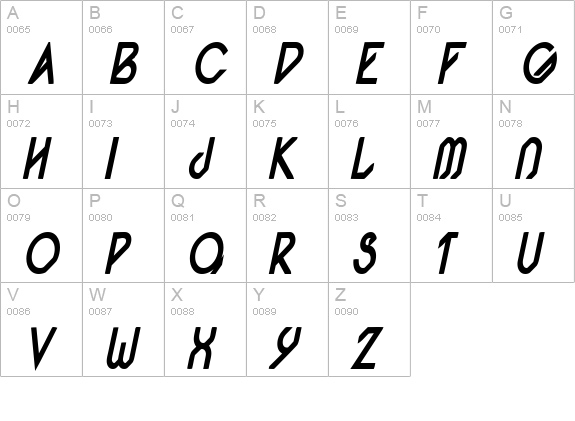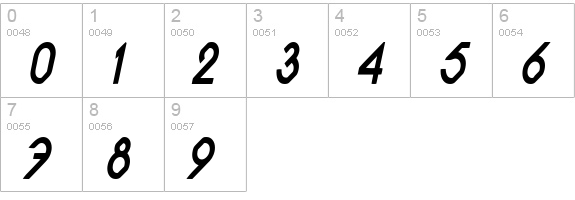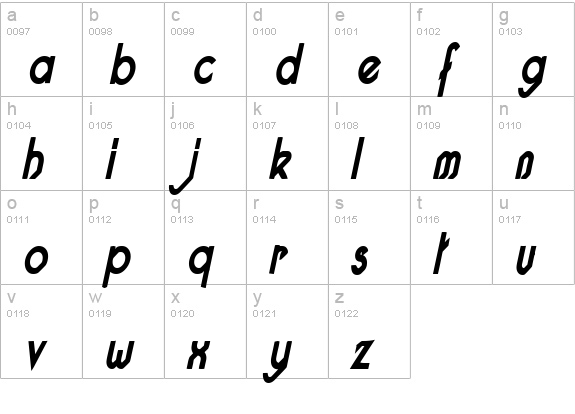
Pacotillenarrowbold ital Font Details
Introducing Pacotillenarrowbold, a stylish and versatile font that combines modern elegance with a touch of sophistication. This unique typeface features sleek lines and a bold presence, making it perfect for a wide range of design projects. Whether you're creating a logo, branding materials, or promotional content, Pacotillenarrowbold will add a touch of class to your work. The best part? Pacotillenarrowbold is available for free download exclusively at FontsMarket.com. With its clean and crisp appearance, this font is sure to make a statement and elevate your designs to the next level. Don't miss out on the opportunity to enhance your projects with this exceptional typeface. Download Pacotillenarrowbold today and let your creativity shine!